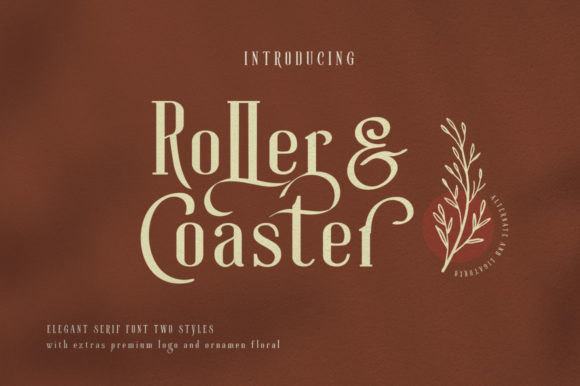
Introducing Roller Coaster Font - A Journey Through Typographic Elegance
In a world saturated with monotonous fonts, Roller Coaster Font emerges as a breath of fresh air, a typographic masterpiece that captivates and enthralls. This exquisite serif font, meticulously crafted by the talented lickermelody, is a testament to the enduring power of classic design, infused with a touch of modern flair.
Roller Coaster Font's striking presence is undeniable, its curves reminiscent of a vintage carousel, each letter a finely tuned element in a symphony of elegance. Its intricate details evoke a sense of nostalgia, transporting you to an era of timeless beauty. Whether you're designing a wedding invitation, a luxury brand logo, or simply seeking to add a touch of sophistication to your creative projects, Roller Coaster Font stands as your steadfast companion.
Beyond its visual allure, Roller Coaster Font possesses an undeniable functionality. Its carefully balanced proportions ensure effortless readability, even at smaller sizes. The font's generous x-height and open counters create a sense of airiness, inviting your readers to delve into your content with ease. Whether you're composing a heartfelt letter, crafting a compelling marketing brochure, or creating an eye-catching social media post, Roller Coaster Font amplifies your message with unwavering clarity.
But Roller Coaster Font's charm extends far beyond mere aesthetics and practicality. This font is an experience, an invitation to embark on a typographic roller coaster ride. Its dynamic strokes and playful serifs create a sense of movement, drawing your readers into the narrative you're weaving. With Roller Coaster Font, your words take on a life of their own, captivating your audience and leaving them spellbound.